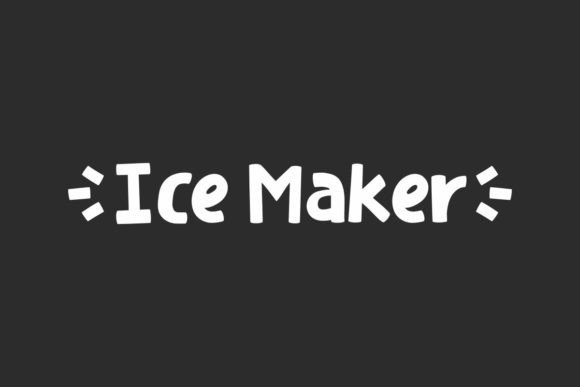
Ice Maker Font
Welcome to the wonderful world of Ice Maker Font, the cutest comic display font you'll ever encounter! This playful and captivating font will infuse your designs with a delightful touch of fun, igniting your creativity and leaving you brimming with innovative ideas.
Meet Ice Maker Font, a whimsical font that breathes life into your designs. Its charming personality shines through every letter, captivating the hearts of young and old alike. Whether you're crafting eye-catching posters, designing vibrant logos, or creating enchanting illustrations, Ice Maker Font will transform your vision into a captivating reality.
Dive into a world of boundless possibilities with Ice Maker Font! Its versatility extends across an array of industries, from the vibrant world of fashion to the enchanting realm of children's products. Whether you're designing custom t-shirts, creating playful posters for school events, or crafting captivating menus for your café, Ice Maker Font will elevate your designs to new heights.
Embrace the playful spirit of Ice Maker Font and watch your designs come alive. This font is not just a collection of letters; it's a gateway to a world of imagination and creativity. Let Ice Maker Font inspire you to explore new horizons and create designs that leave a lasting impression.